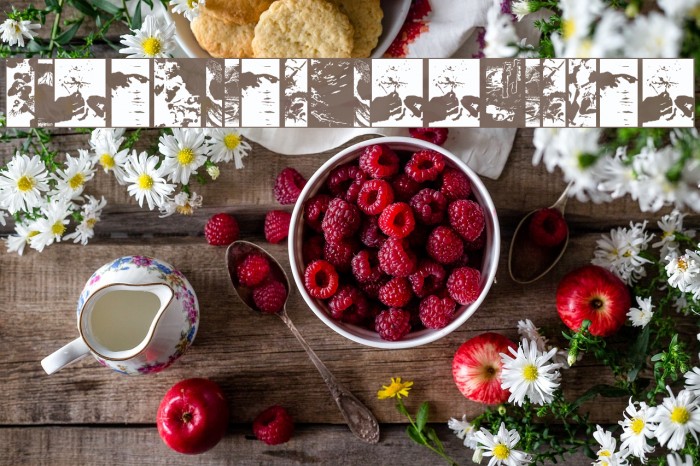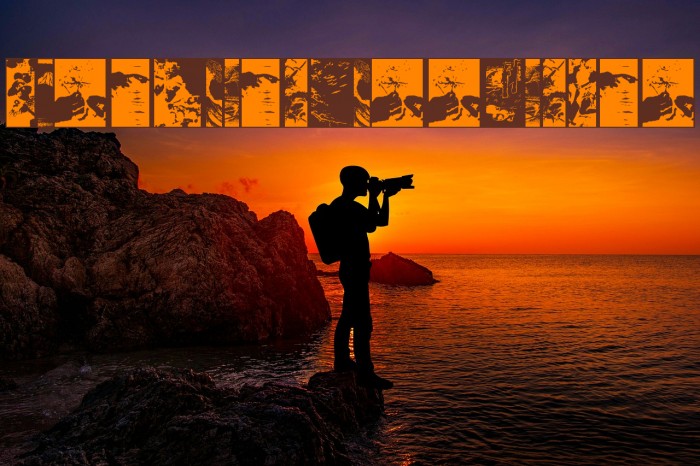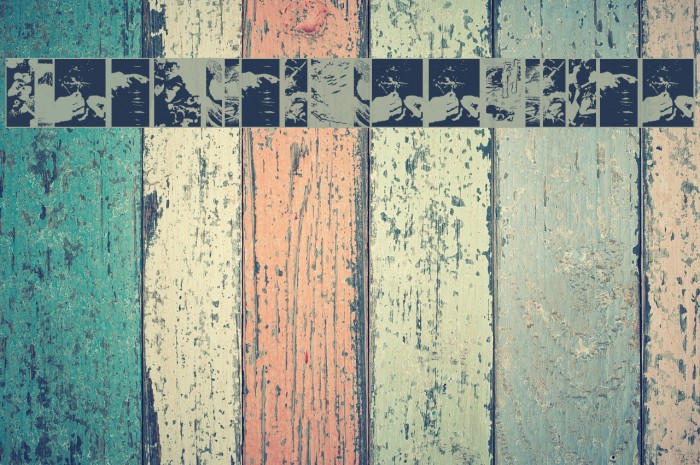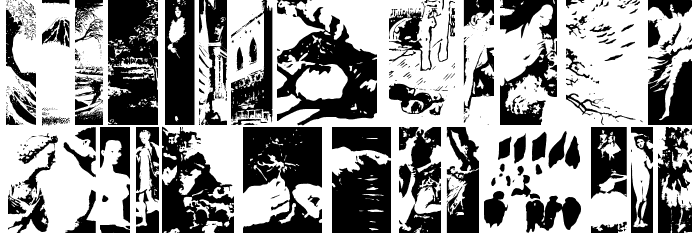
AbstractClassicCuts Font
AbstractClassicCuts Description
Highly abstract, collage-style letterforms composed of fragmented black-and-white photographic or illustrated imagery, with each character formed from a unique, high-contrast cutout. The shapes are irregular and visually complex, making legibility secondary to artistic impact.
Abstract, collage-like font using cutout imagery for each character from Uncategorized fonts.
- Proposed Projects: Album covers, avant-garde posters, experimental branding, art installations, zines.
- Overall Style: Abstract, Artistic, Experimental
- Use Case: Logos, Headlines, Posters, Artistic projects